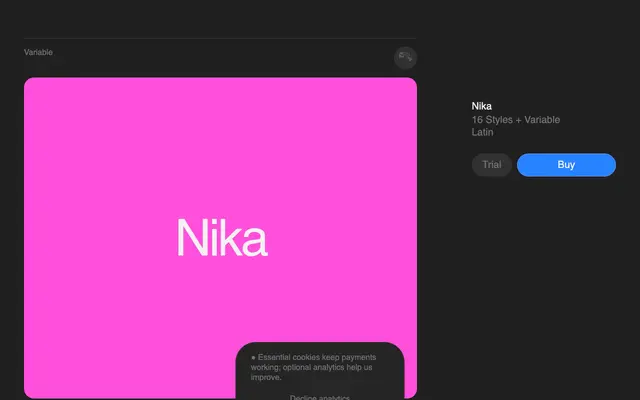
Nika
A sans-serif with controlled stroke modulation by Rostislav Vaněk, adding depth and tension without drifting into ornament.
Nika introduces deliberate shading and contrast into a sans-serif framework, departing from the flat uniformity typical of the genre. Sixteen static styles run from ExtraLight to Black with matching italics, and a variable font spans the weight axis across 308 languages within the Latin script. Developed with collaboration from Matyáš Machat and Petr Kučera, it suits branding and editorial contexts where a geometric-feeling sans risks feeling too cold.
Nika is a sans-serif with deliberate stroke modulation and contrast, departing from strict grotesque uniformity; the organic tension in its strokes places it closest to the humanist sans tradition.